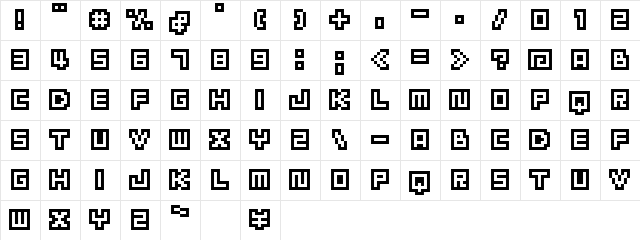
BM cube A8
Design Context for BM cube Typeface
BM cube takes a measured approach to typography — its balanced proportions and neutral character make it a reliable workhorse for both digital and print work.